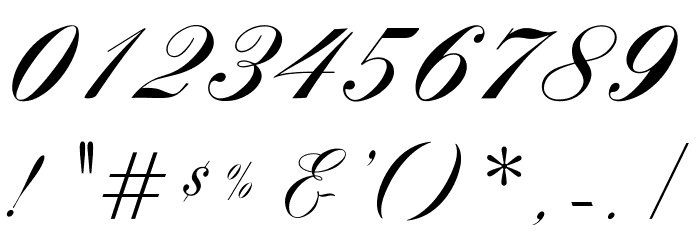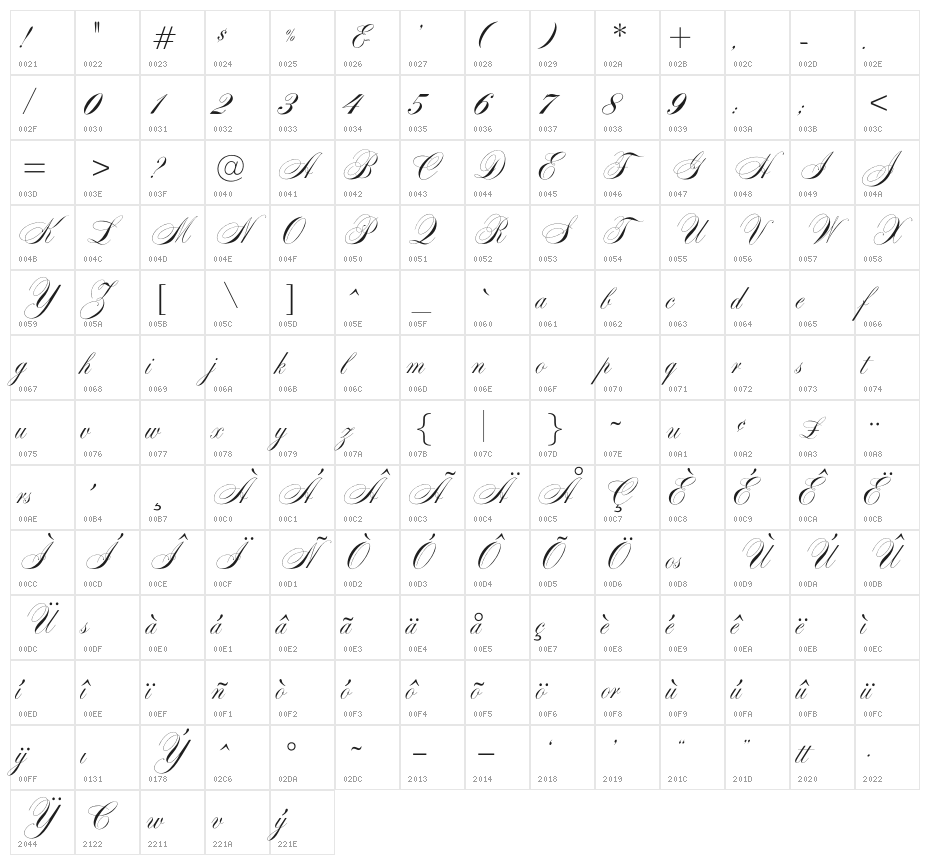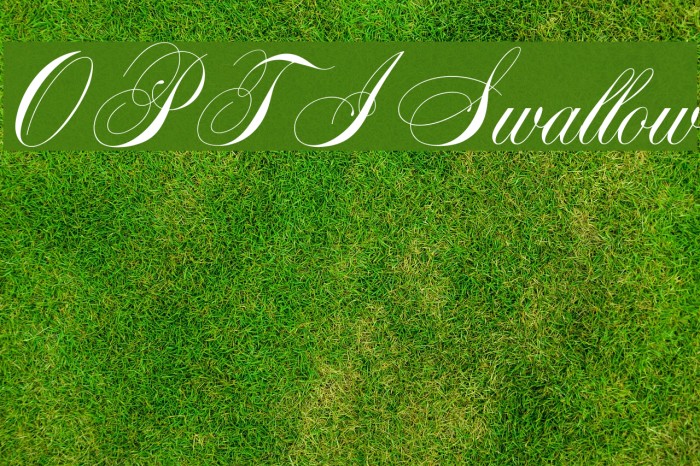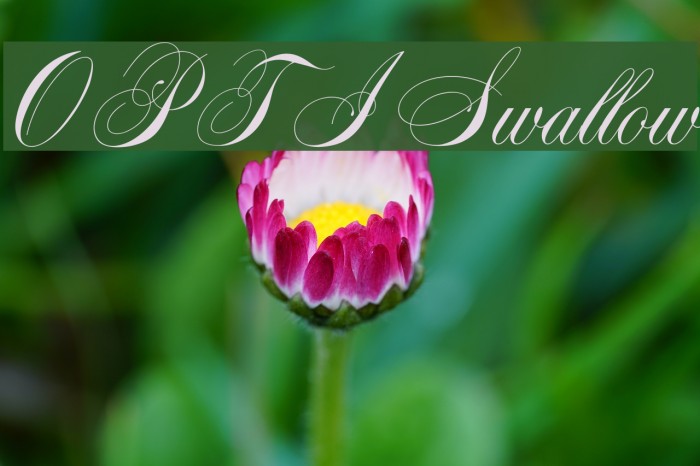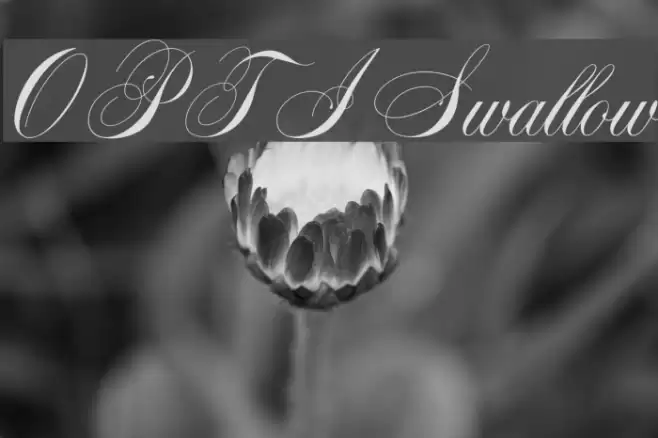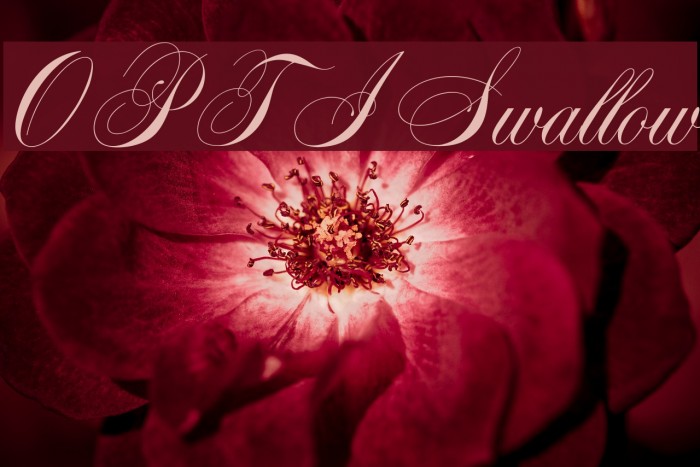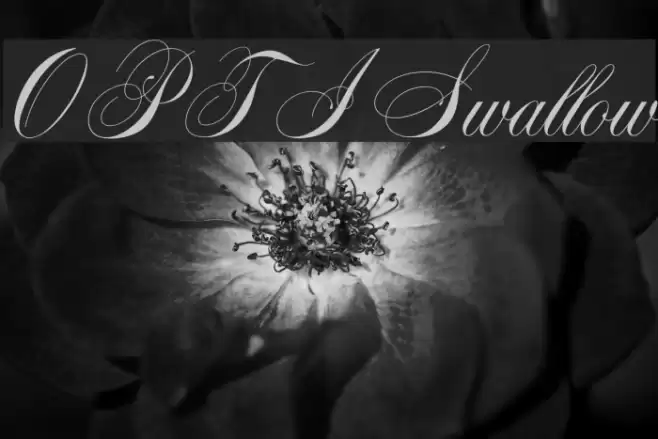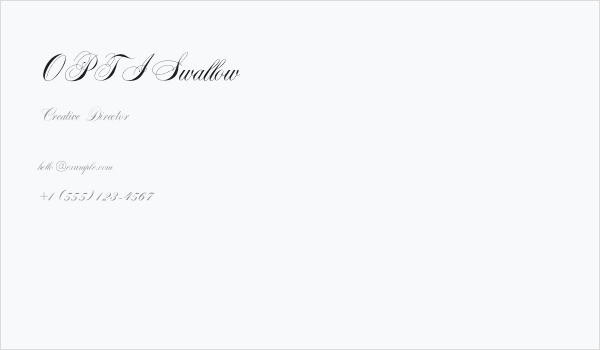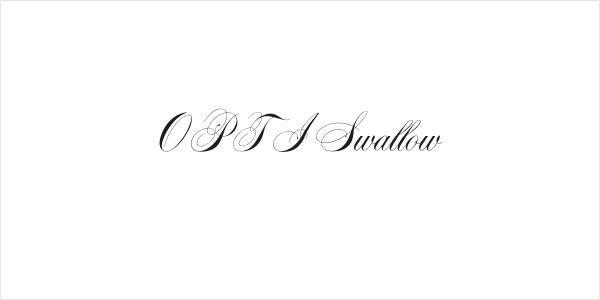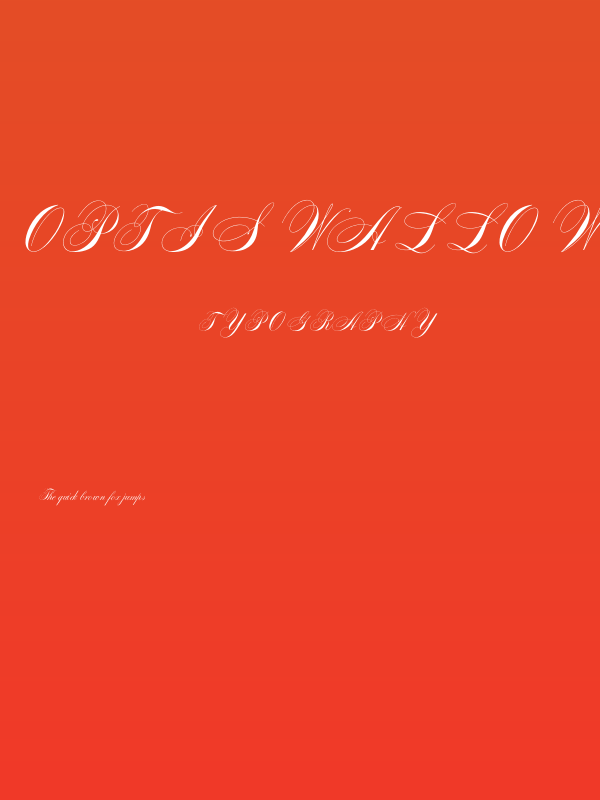
OPTISwallow Font
OPTISwallow Description
This elegant script font features a sophisticated and flowing design, characterized by its graceful curves and delicate strokes. The uppercase letters are ornate and decorative, with intricate loops and flourishes that add a touch of luxury and refinement. The lowercase letters maintain a consistent style, offering a seamless blend of elegance and readability. The numerals are stylishly crafted, complementing the overall aesthetic of the font. Special characters are thoughtfully designed, maintaining the font's cohesive and artistic appearance. This font exudes a sense of classic beauty and timeless charm, making it ideal for projects that require a touch of sophistication.
| Proposed Projects | Ideal for wedding invitations, luxury branding, elegant stationery, and high-end product packaging. |